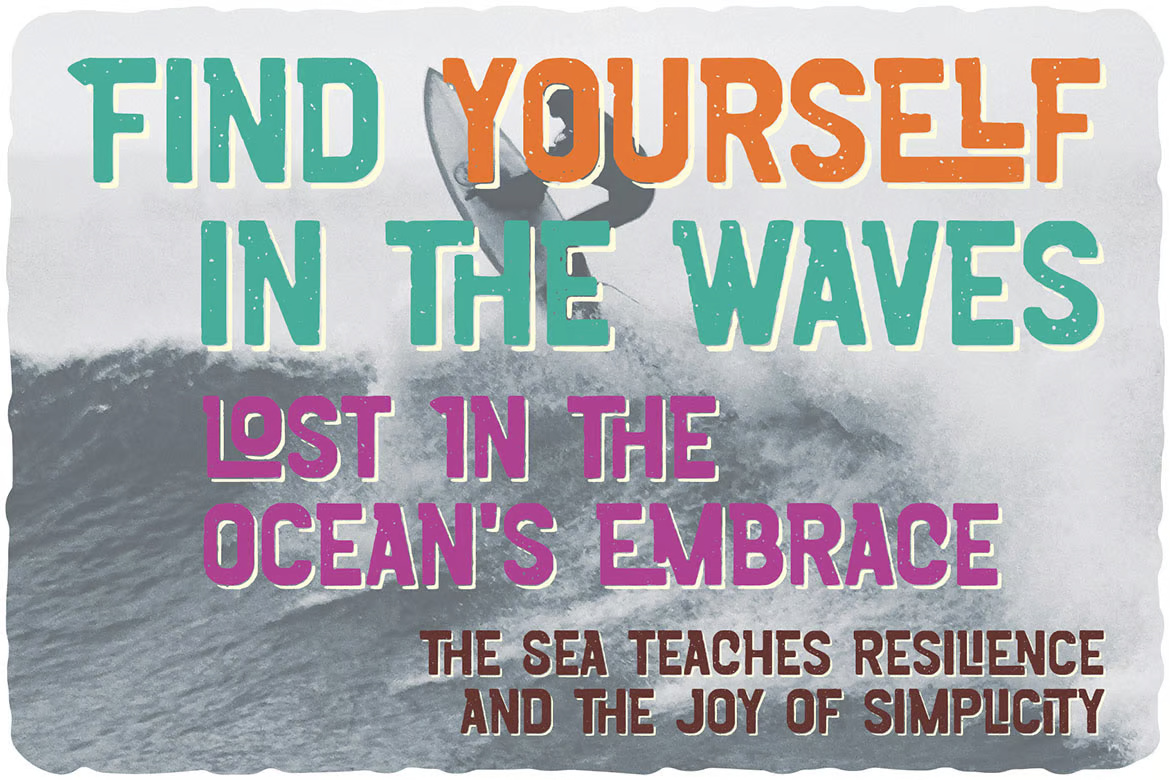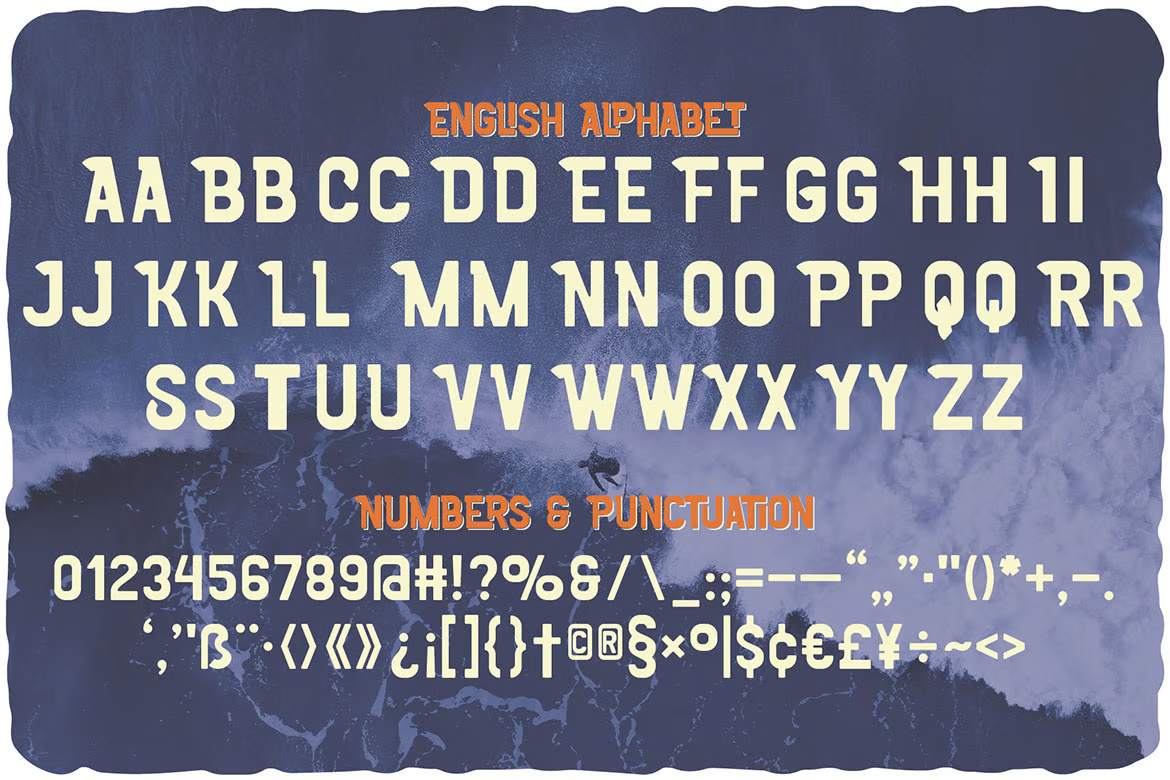
Santa Cruz Retro Label Font
The Santa Cruz Retro Label Font is a vintage-inspired typeface that embodies a classic yet bold aesthetic. With its slightly condensed letterforms, sharp edges, and subtle texture, this font evokes the charm of old-school surf culture, retro product labels, and nostalgic signage. Perfect for branding, posters, packaging, and apparel, it delivers a strong visual impact while maintaining a handcrafted feel.
Santa Cruz Retro Label Sans-Serif Font
Santa Cruz Retro Label Font